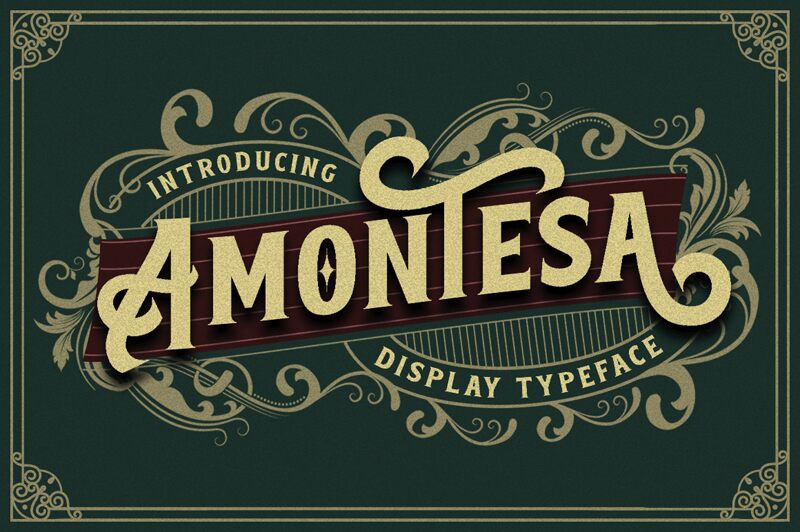
Introducing Amontesa, a bold and retro display font designed by M Akmal. With its striking curves and angles, this font is perfect for creating eye-catching titles and headlines that demand attention. Whether you're designing a vintage-style poster or a modern website with a nod to the past, Amontesa has the versatility to suit any project. Use it for branding, packaging, logos or even apparel design - the possibilities are endless. Its boldness will add character and personality to your designs, making them stand out from the crowd. So why wait? Try Amontesa today and see how it can take your projects to the next level!
Amontesa
M Akmal